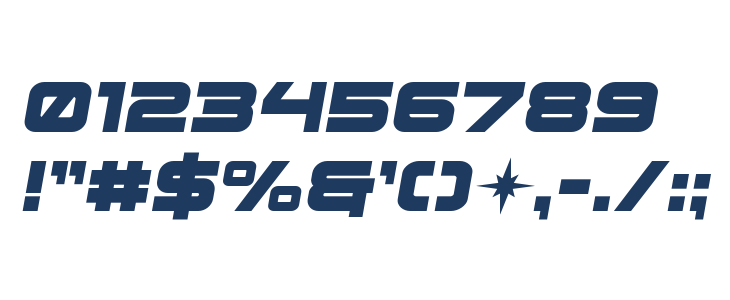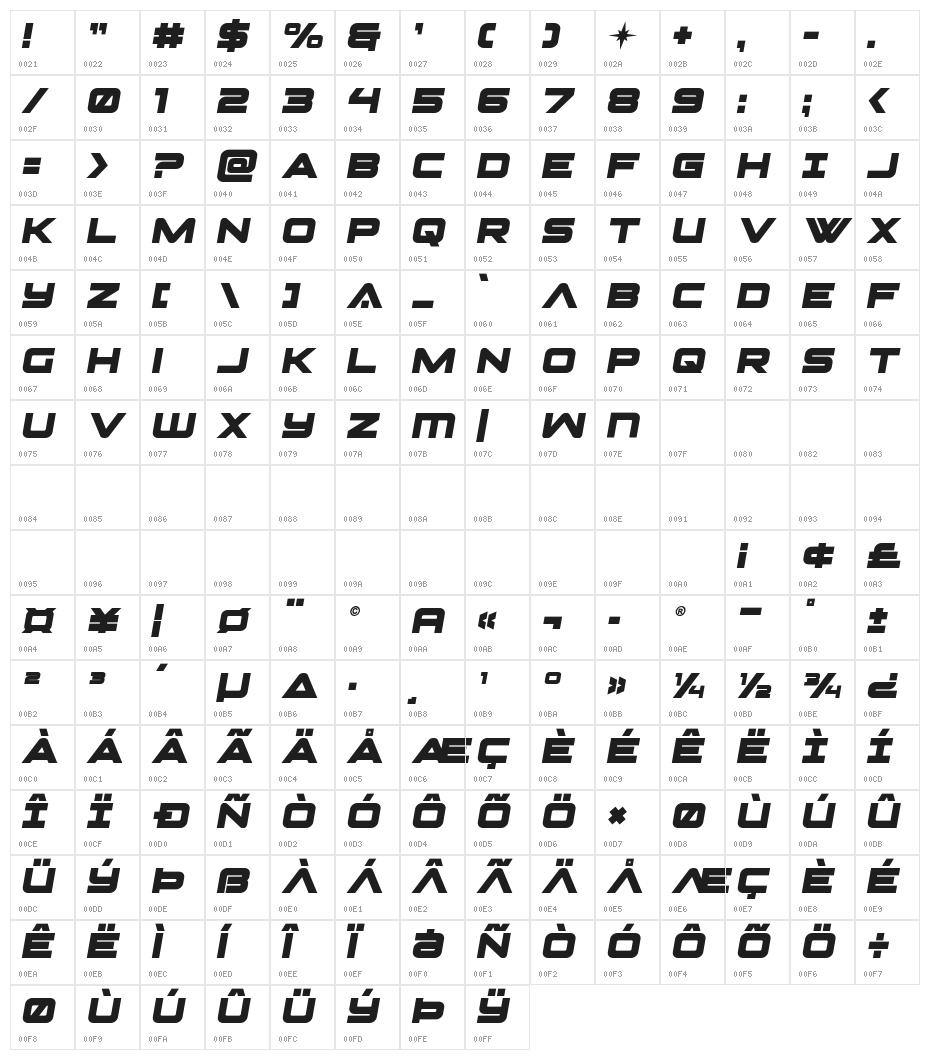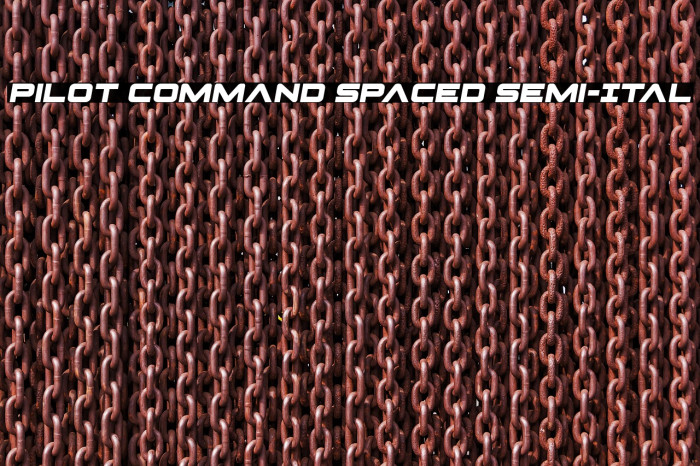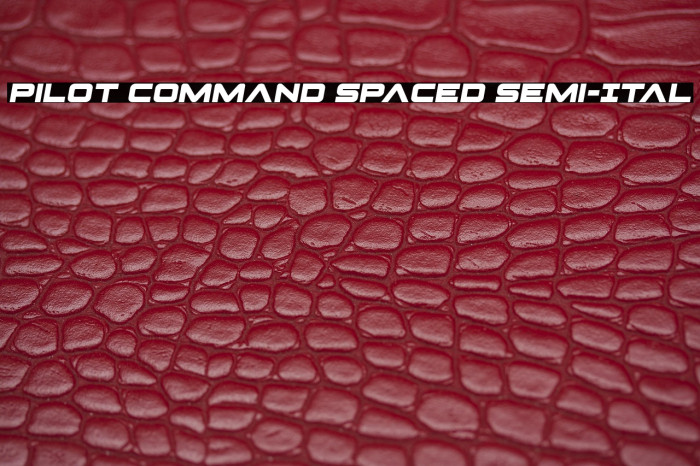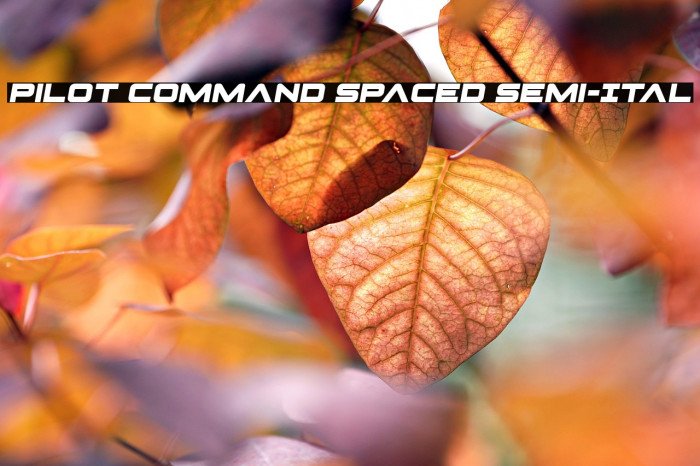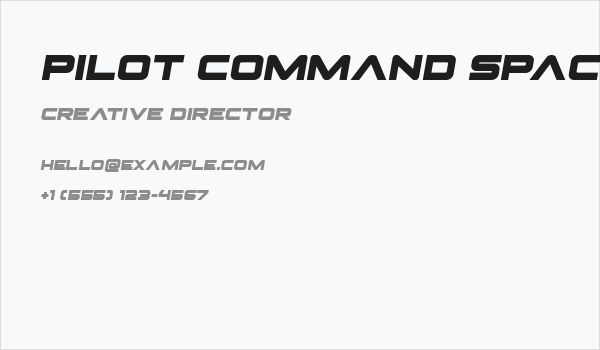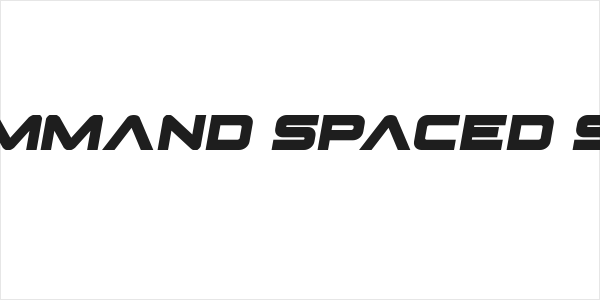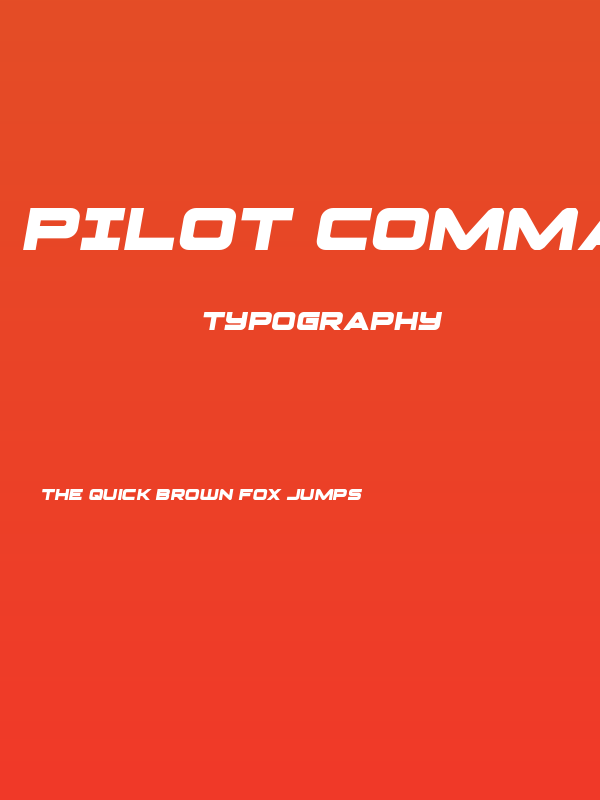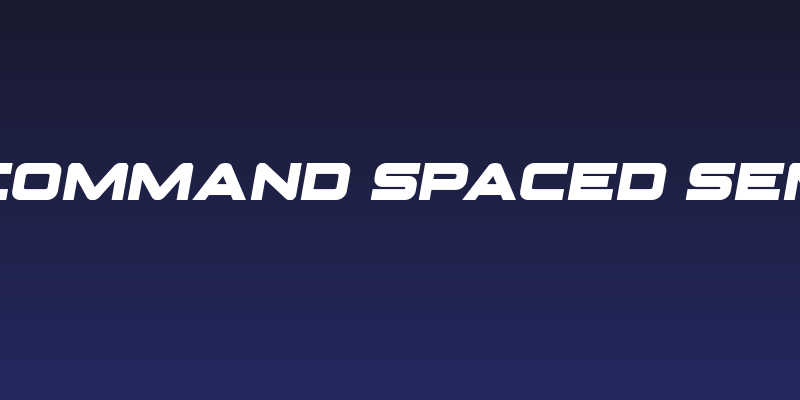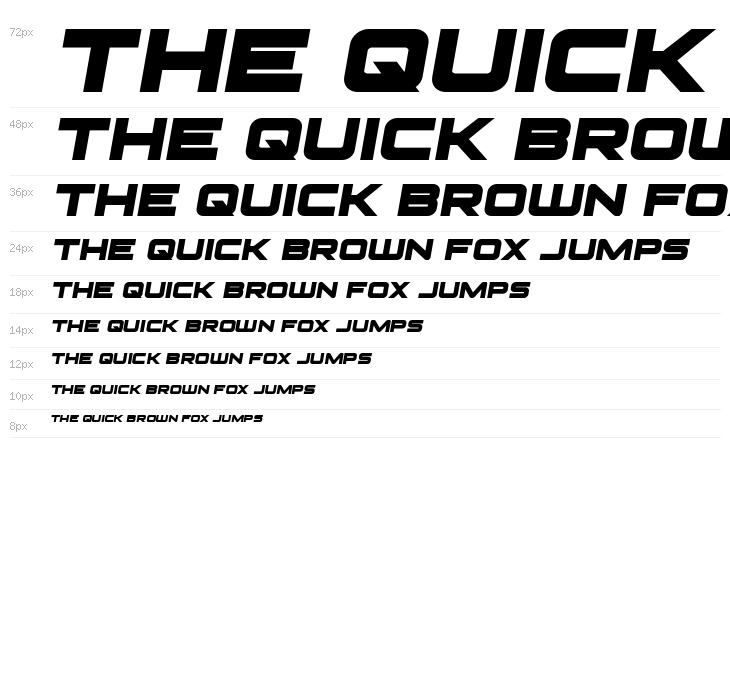
Pilot Command Spaced Semi-Ital Font
Pilot Command Spaced Semi-Ital Description
This font features a bold and dynamic design with a futuristic flair. The characters are slightly italicized, giving a sense of motion and speed. The strokes are thick and consistent, providing a strong presence on the page. The angular cuts and geometric shapes add a modern and edgy feel, making it suitable for attention-grabbing headlines or branding. The spacing between characters is slightly expanded, ensuring readability while maintaining a compact appearance. The numbers and special characters follow the same stylistic cues, ensuring uniformity across all text elements.
| Proposed Projects | Ideal for tech branding, sports team logos, video game titles, and sci-fi themed projects. |